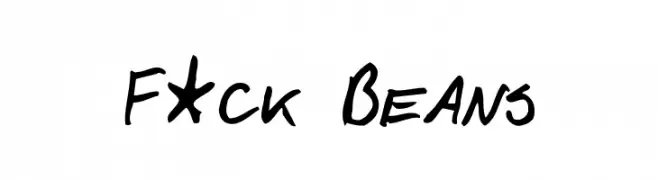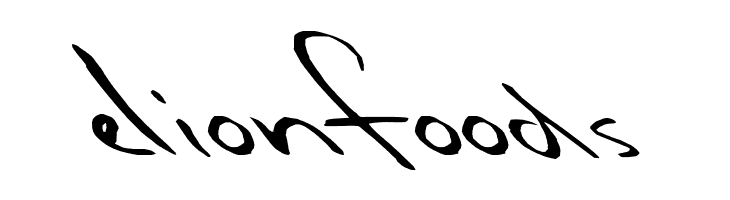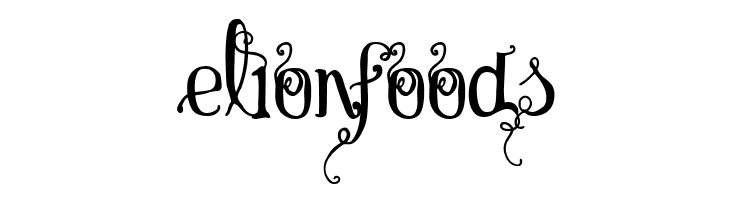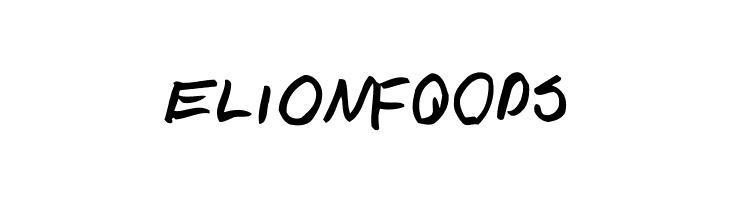
A dynamic, handwritten font with expressive, fluid strokes.
A decorative and ornate font with gothic influences and intricate flourishes.
A modern, rounded font with cultural influences and smooth, flowing letterforms.
A bold, energetic handwritten font with fluid and expressive strokes.
A casual, handwritten cursive font with fluid strokes and dynamic character.
A playful, handwritten font with fluid, interconnected strokes and a whimsical charm.